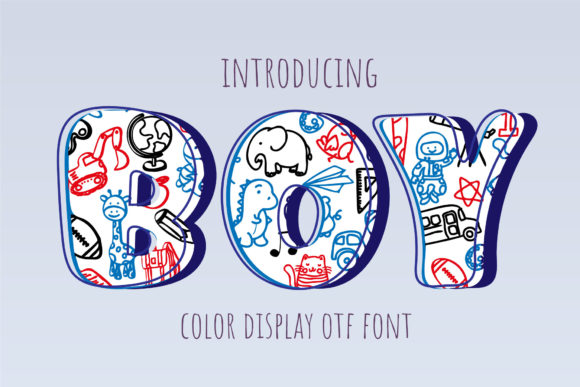
Introducing Boy Font: The Ultimate Display Font for Refreshing Designs
In the world of typography, fonts play a crucial role in making or breaking the visual appeal of a design. When it comes to creating stunning and refreshing designs, the right font can make all the difference. This is where Boy Font comes in – a fun, thick lettered display font that is sure to add a bubbly and cool touch to your creations.
What is Boy Font?
Boy Font is a carefully crafted display font designed to provide a beautiful and refreshing look to your designs. Its thick, bold letters exude a sense of fun and playfulness, making it perfect for designs that require a youthful and energetic vibe.
Whether you’re a graphic designer, a digital artist, or simply someone who loves to dabble in design, Boy Font is an excellent addition to your font collection. Its versatility and ease of use make it suitable for a wide range of design projects, from posters and flyers to social media graphics and website headers.
Key Features of Boy Font
- Thick and Bold Letters: Boy Font features thick, bold letters that are sure to grab attention and make your designs stand out.
- Fun and Playful: The font’s playful and fun design makes it perfect for designs that require a youthful and energetic vibe.
- Easy to Read: Despite its bold design, Boy Font is easy to read, making it suitable for use in a variety of design projects.
- Highly Versatile: Boy Font can be used in a wide range of design projects, from posters and flyers to social media graphics and website headers.
How to Use Boy Font in Your Designs
Using Boy Font in your designs is easy. Here are a few tips to get you started:
- Pair it with Other Fonts: Boy Font pairs well with other fonts, making it easy to create stunning and unique designs.
- Experiment with Colors: The font’s bold design makes it easy to experiment with different colors and create stunning designs.
- Use it for Headings: Boy Font is perfect for use in headings and titles, where its bold design can really make an impact.
Benefits of Using Boy Font
There are many benefits to using Boy Font in your designs. Here are a few:
- Instantly Grabs Attention: The font’s bold design instantly grabs attention, making it perfect for designs that require a strong visual impact.
- Adds a Playful Touch: Boy Font’s playful design adds a fun and youthful touch to your designs, making them more engaging and appealing.
- Easy to Read: Despite its bold design, Boy Font is easy to read, making it suitable for use in a variety of design projects.
- Highly Versatile: Boy Font can be used in a wide range of design projects, making it a valuable addition to your font collection.
Who Can Use Boy Font?
Boy Font is suitable for use by a wide range of designers and artists, including:
- Graphic Designers: Boy Font is perfect for graphic designers who need a fun and playful font for their designs.
- Digital Artists: The font’s bold design makes it suitable for use by digital artists who want to add a strong visual impact to their work.
- Small Business Owners: Boy Font is also suitable for use by small business owners who want to create stunning and professional-looking designs for their marketing materials.
In conclusion, Boy Font is a fun, thick lettered display font that is sure to add a bubbly and cool touch to your designs. Its bold design, ease of use, and versatility make it suitable for use in a wide range of design projects. Whether you’re a graphic designer, a digital artist, or simply someone who loves to dabble in design, Boy Font is an excellent addition to your font collection.